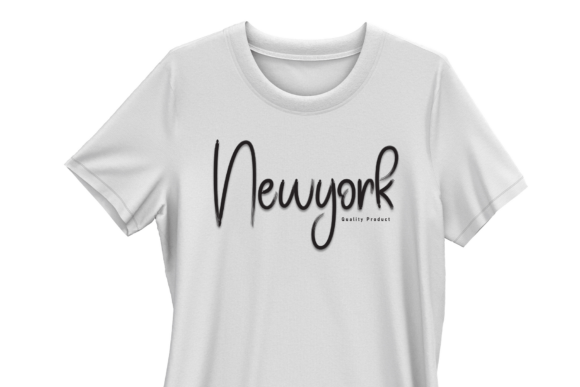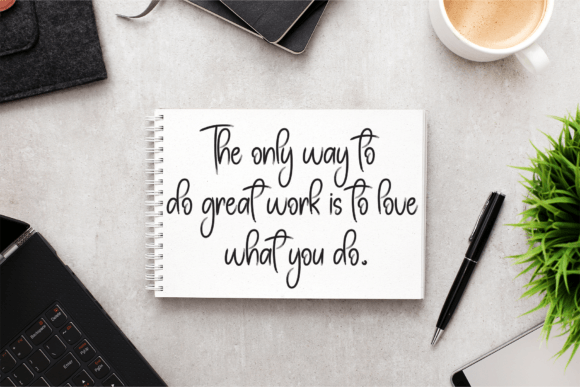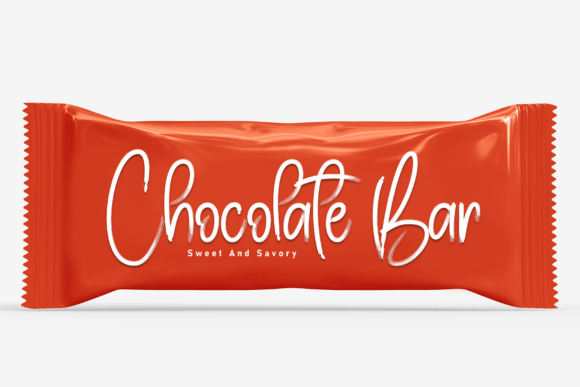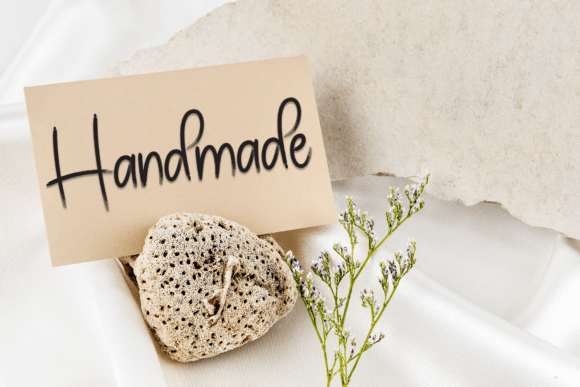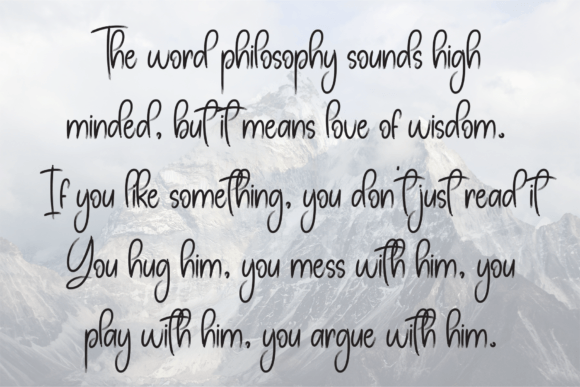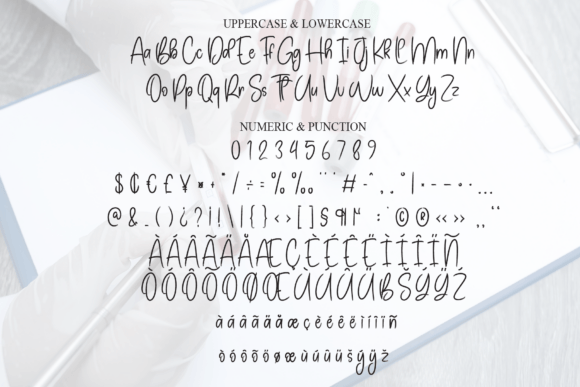
The Perfect Font for a Dark and Moody Aesthetic
Have you ever found yourself staring at a blank page, desperate for the perfect font to bring your design to life? You’re not alone. As creatives, we’ve all been there, searching for that elusive combination of style and substance that sets our work apart. And then, it hits you – the perfect font that elevates your design from ordinary to extraordinary.
Enter the Blood Signature Font, a bold and stylish brush script font that’s sure to make a statement. With its sharp, flowing strokes, this font is perfect for logos, posters, or any design that requires a dramatic and edgy look. Whether you’re designing for a spooky theme or just want to add some attitude to your brand, the Blood Signature Font is a valuable addition to any designer’s toolkit.
Blood Signature Font Key Features
- Font Family: Blood Signature
- Unique Characteristics:
- Hand-drawn and hand-painted elements
- Distressed and worn texture for a vintage look
Blood Signature Font Review
I recently had the chance to work with the Blood Signature Font, and I must say it’s a unique and intriguing addition to any design project. ✨ The font’s hand-drawn, handwritten feel gives it a personal and emotive touch that can be perfect for creative, artistic, or even horror-themed projects.
- ✨ The font’s irregularities and imperfections make it stand out from more polished, commercial fonts.
- ✨ It’s great for creating a sense of urgency or tension in a design.
- ✨ The font’s versatility allows it to be used for a wide range of applications, from logos to posters to digital interfaces.
However, there are some limitations to consider: ⚠️ The font’s irregularities can also make it difficult to read, especially in large blocks of text.
Additionally, ⚠️ the font may not be suitable for projects where legibility is a top priority.
Overall, the Blood Signature Font is a great choice for designers who want to add a touch of personality and creativity to their work. While it may not be perfect for every project, it’s definitely worth considering for those looking to add some visual interest and emotional depth to their designs.
Use the font to create a dramatic title or heading.
Some common use cases for Blood Signature Font include:
- Creating a mysterious or eerie atmosphere.
- Designing a horror movie or game title.
- Adding a touch of sophistication to a luxury brand.
Experiment with different font sizes, styles, and colors to get the most out of Blood Signature Font.